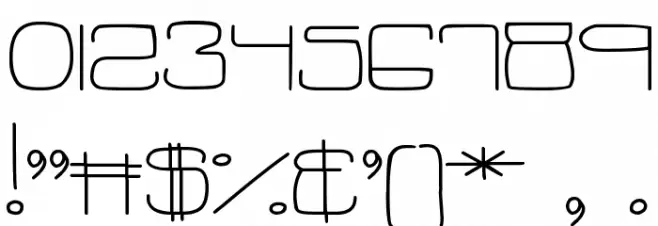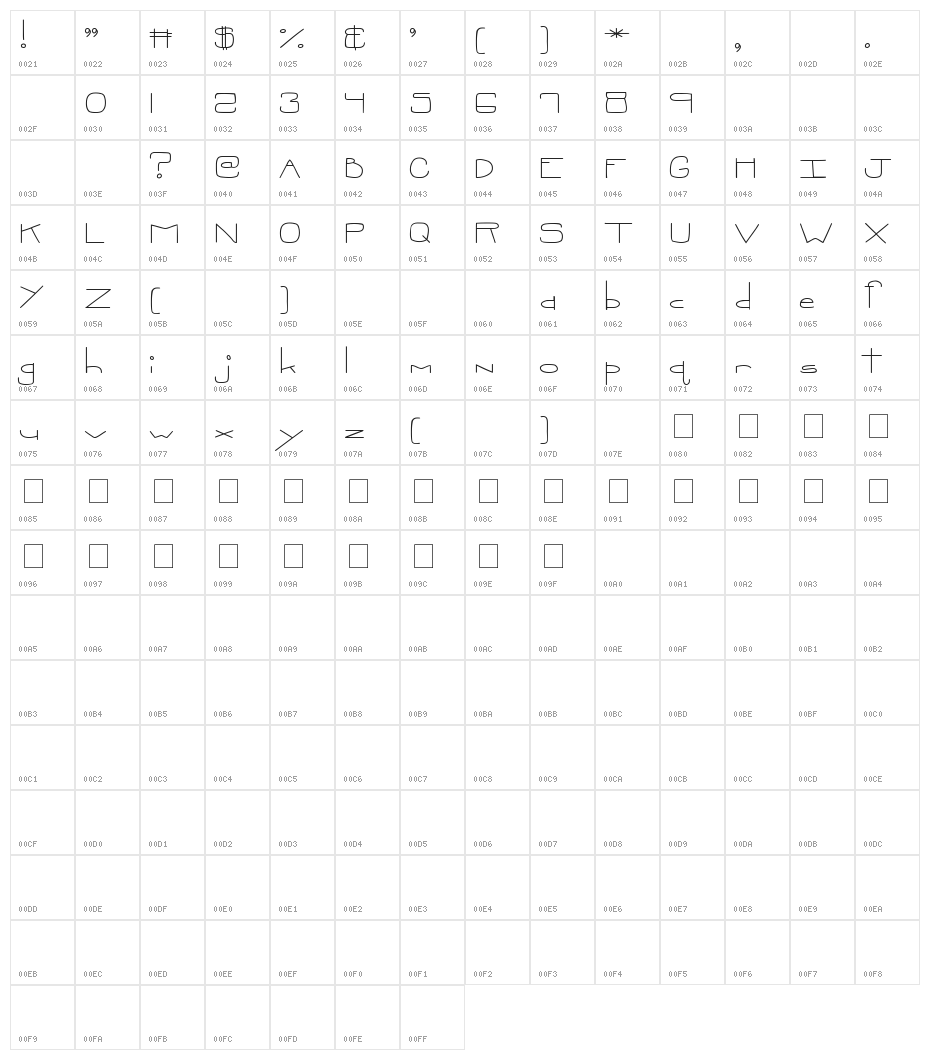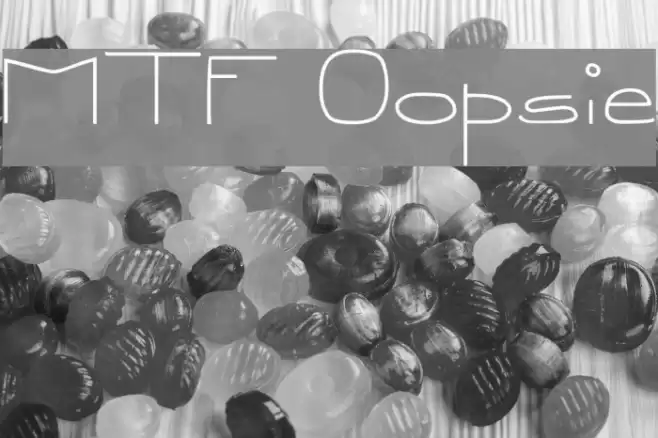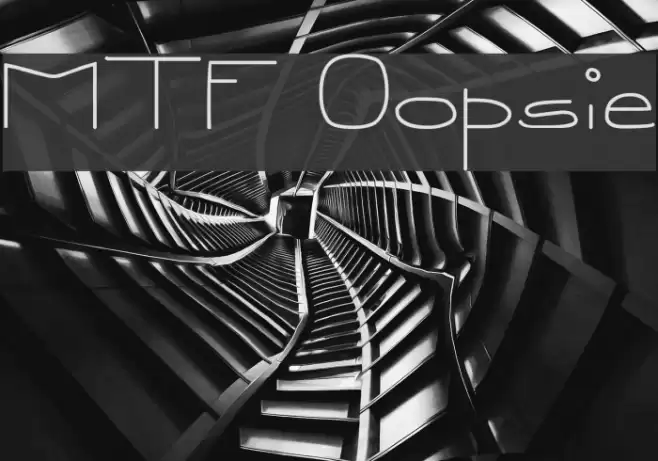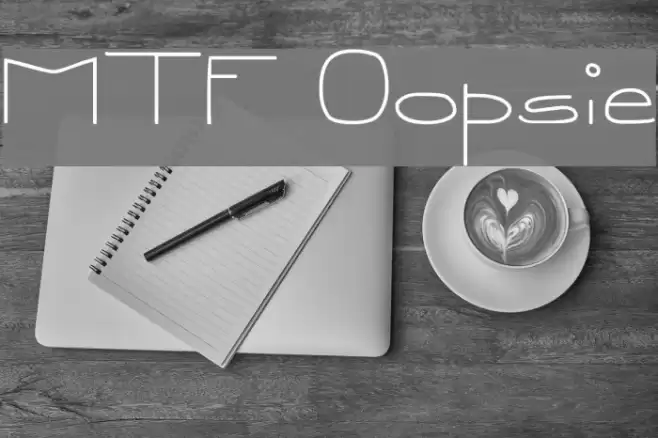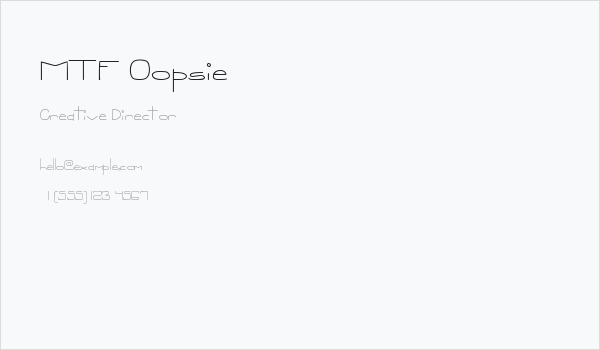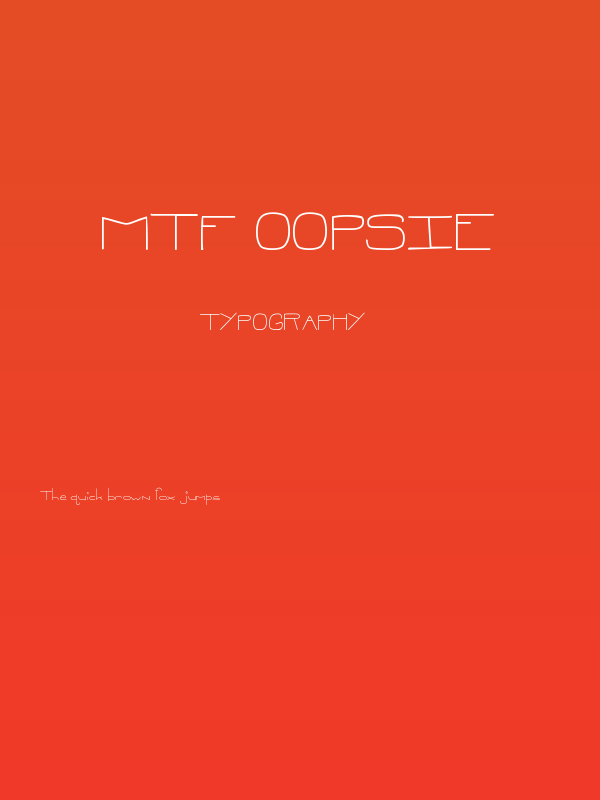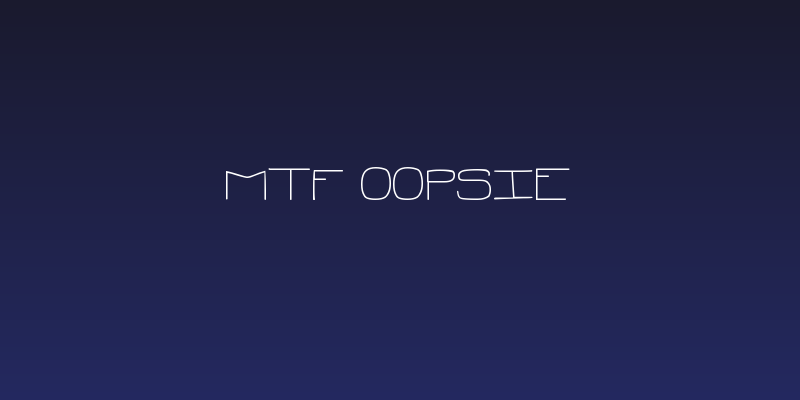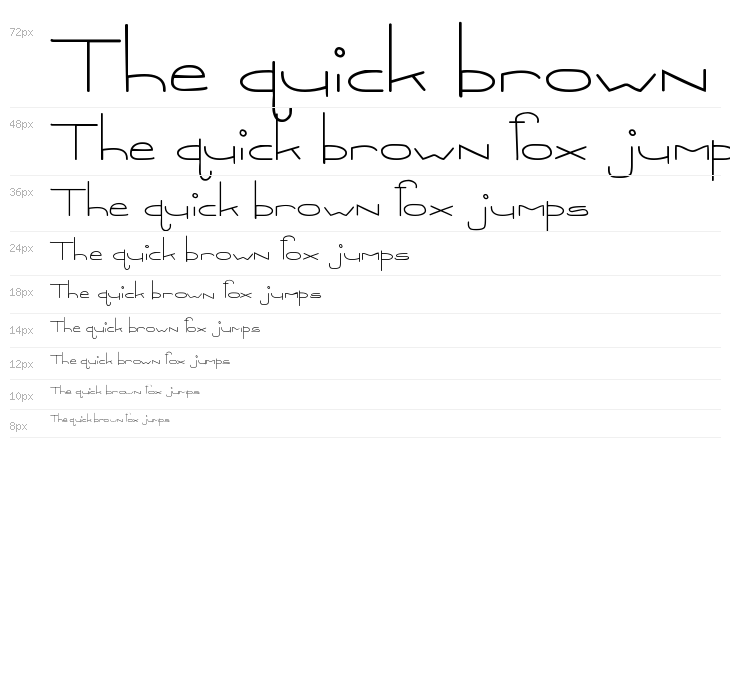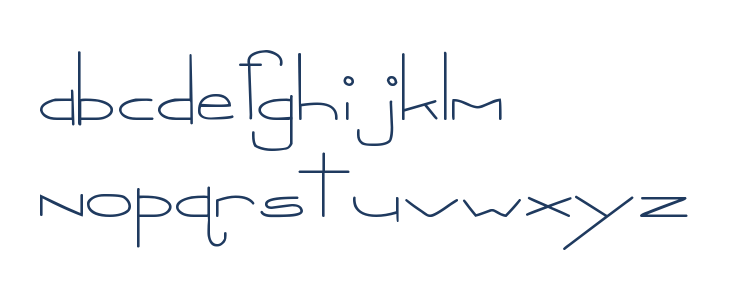
MTF Oopsie Font
MTF Oopsie Description
This font features a playful and whimsical design, characterized by its thin, hand-drawn lines and quirky letterforms. The uppercase letters exhibit a mix of straight and slightly curved lines, giving them a casual and informal appearance. Lowercase letters maintain this playful style, with some characters featuring unique loops and curves that add to the font's charm. The numerals are consistent with the overall style, maintaining the same thin line weight and whimsical character. Special characters are creatively designed, adding a touch of fun and personality. This font's unique style makes it stand out, perfect for projects that require a light-hearted and informal touch.
| Proposed Projects | Ideal for children's books, greeting cards, playful branding, and creative posters. |